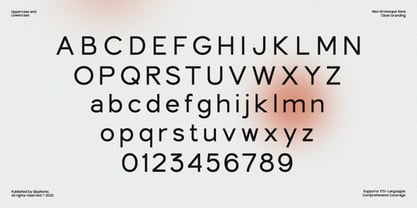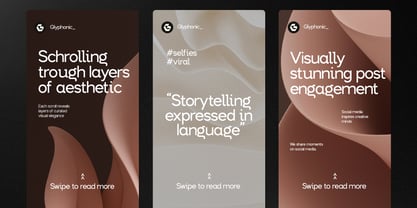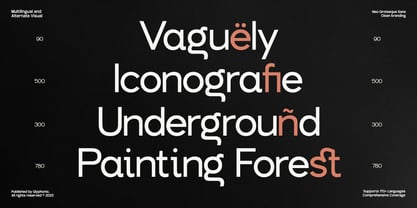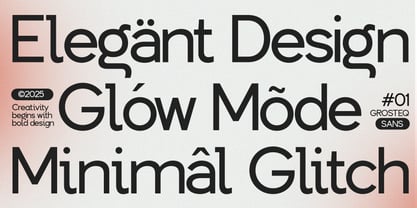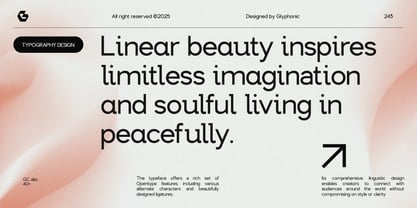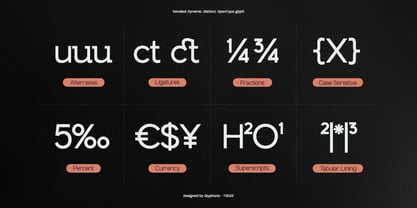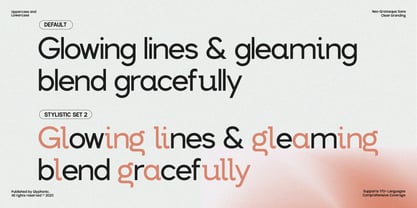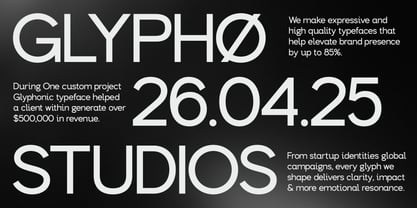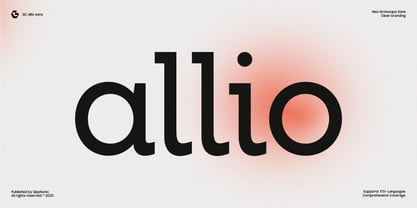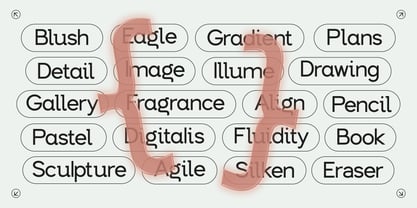
GC Allio
GC Allio is a neo-grotesque sans-serif typeface that blends minimal form with precise clarity. Designed for modern branding and clean communication, it’s perfectly suited for headlines, corporate identities, logos, packaging, and editorial layouts. Crafted for designers who value simplicity and elegance, it leaves a sleek and memorable impression. With its balanced proportions, uniform stroke widths, and geometric yet friendly curves, GC Allio delivers a professional look without losing approachability. Whether you’re working on lifestyle branding, digital interfaces, or minimalist print design, this typeface offers versatility and timeless style. Features: Uppercase & Lowercase Ligatures & Stylistic Alternates Numbers & Punctuation Multilingual Support Make your design bold, refined, and timeless with GC Allio.